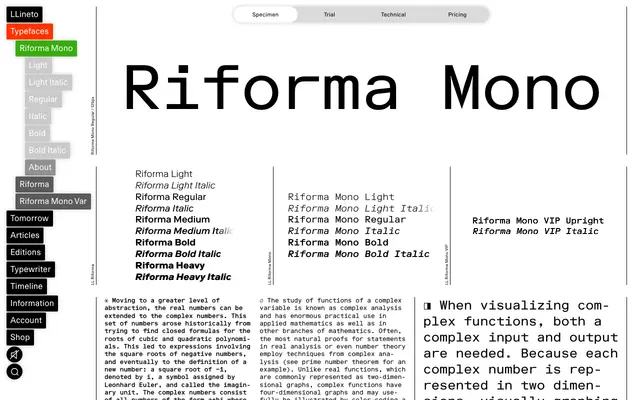
LL Riforma Mono
Lineto · NORM (Dimitri Bruni, Manuel Krebs, Ludovic Varone) · 2024
A monospaced companion to LL Riforma by Zürich studio NORM, built on geometric construction with a full set of Unicode box-drawing characters.
Designed by NORM and released by Lineto in 2024 to mark the studio's 25th anniversary, the typeface carries forward the geometric construction and large x-height of LL Riforma into a fixed-width format. Serifs and crossbars are confidently prolonged to fill the monospace grid, while the original sharpness softens slightly to accommodate the constraints of equal character widths. The family includes the full Unicode set of box-drawing characters and block elements, reviving a semigraphic tradition from early digital typography.
A monospaced companion to the geometric sans-serif LL Riforma, with fixed-width construction derived from geometric letter forms and a large x-height. Classified as mono given the unified character width and inclusion of Unicode box-drawing characters.